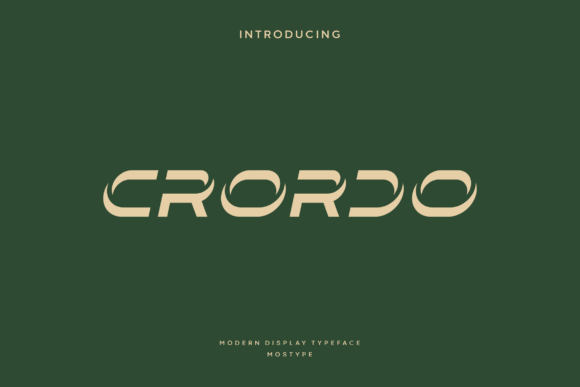
The Birth of a Science Fiction Masterpiece: Crordo Font
Have you ever been struck by a bolt of creative lightning, and suddenly, your mind is flooded with ideas for a new project? That’s exactly what happened to designers and typography enthusiasts when they laid eyes on the Crordo Font. This modern sans serif typeface is more than just a pretty face; it’s a gateway to a world of endless possibilities.
Designed to bring a science fiction style to the forefront, the Crordo Font is perfect for logos, branding, headlines, and titles that demand attention. Its minimalist design makes it versatile and adaptable to any project, from futuristic novels to cutting-edge tech startups. For designers, the Crordo Font is a valuable tool that can help take their work to the next level.
Key Features of Crordo Font
- Font Family: Crordo is a sans-serif font family, designed for modern and minimalist designs.
- Font Size: Crordo is available in 5 weights: Thin, Light, Regular, Medium, and Bold, catering to various design needs.
- Resolution: Designed for high-resolution displays, Crordo is ideal for digital and print media, including websites, magazines, and billboards.
- Unique Characteristics: Crordo’s distinctive geometric shapes and clean lines make it perfect for modern branding, wayfinding, and signage systems.
- Character Set: Crordo includes a comprehensive character set, including Latin, Cyrillic, and Greek alphabets, as well as punctuation and symbols.
Crordo Font Review
Overall, I’m quite impressed with the Crordo Font. Here’s a breakdown of what I think works well and what could be improved.
- Unique design: Crordo Font has a distinct, modern aesthetic that sets it apart from more generic fonts.
- Legibility: It’s easy to read, even at smaller font sizes, which is a big plus for digital applications.
- Support for multiple languages: Crordo Font includes a wide range of language support, making it a great choice for global projects.
- Limited bold and italic options: While Crordo Font has some nice bold and italic variations, they’re not as extensive as I’d like to see.
- Not ideal for long blocks of text: The font’s unique design can make it feel a bit overwhelming when used in large quantities.
- Some characters may require adjustments: A few characters, like the ‘a’ and ‘e’, can be a bit tricky to read in certain contexts.
Overall, I think Crordo Font is a great choice for projects that need a modern, stylish font. Just be mindful of its limitations, and you’ll be all set.
The Crordo Font is suitable for a wide range of design applications, including:
– Business cards and letterheads
– Brochures and flyers
– Web design and landing pages
– Social media graphics and ads
Alternatives to Crordo Font for Designers
Montserrat is a sans-serif font designed by Julieta Ulanovsky. It is a popular choice for designers due to its clean and modern aesthetic. Montserrat is ideal for use in digital interfaces, advertising, and editorial design. Compared to Crordo Font, Montserrat has a more minimalist feel and is often used in urban and modern contexts.
Open Sans is a sans-serif font designed by Steve Matteson. It is a highly legible font that is suitable for a wide range of applications, from body text to headings. Open Sans is a great choice for designers who want a clean and neutral font that won’t distract from the content. Compared to Crordo Font, Open Sans is more versatile and has a more neutral tone.